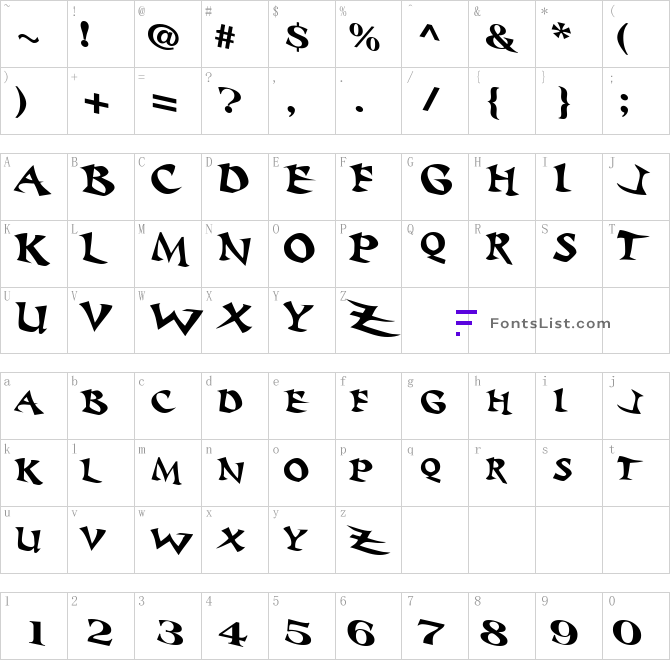
- Font Name:Baratz
Baratz.ttf is a very beautiful artistic font, Baratz.ttf is widely used in the design and printing of various books and pictures,Baratz.ttf has a strong visual impact,Baratz.ttf is a commonly used font in newspapers, magazines and books, and is used in posters, e-commerce Poster design, store design, logo design, font design and other fields.Baratz.